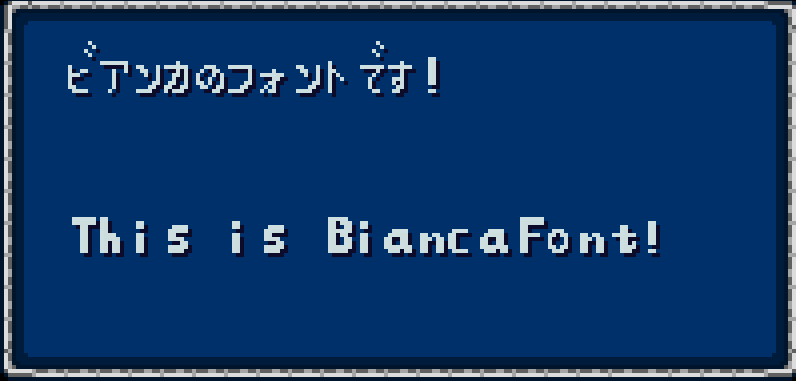
This is a SNES-style font similar to what you would find in Final Fantasy IV, or Dragon Quest V.
It supports English and Japanese (Hiragana/Katagana, but is yet to support most Kanji.)
(name is reference to Dragon Quest V/Dragon Warrior V)
This looks so good! Would love to see these bad boys supported one day too: ÖÄÜß
I gotta push a new version soon, so i very much so could add character support for Ö, Ä, Ü and ß